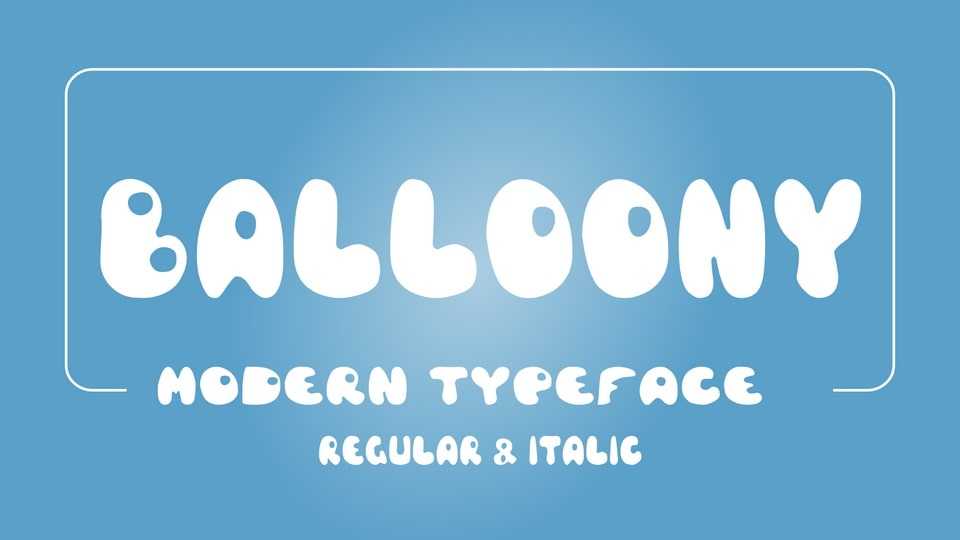
Download Balloony font, a cool, bubbly and fun display font. Balloony is suitable for logotype, headline, in brand identity, apparel industry, poster, music, movie, game, magazine, book, comic, cartoon and so on.
Designer: Roman Caseru